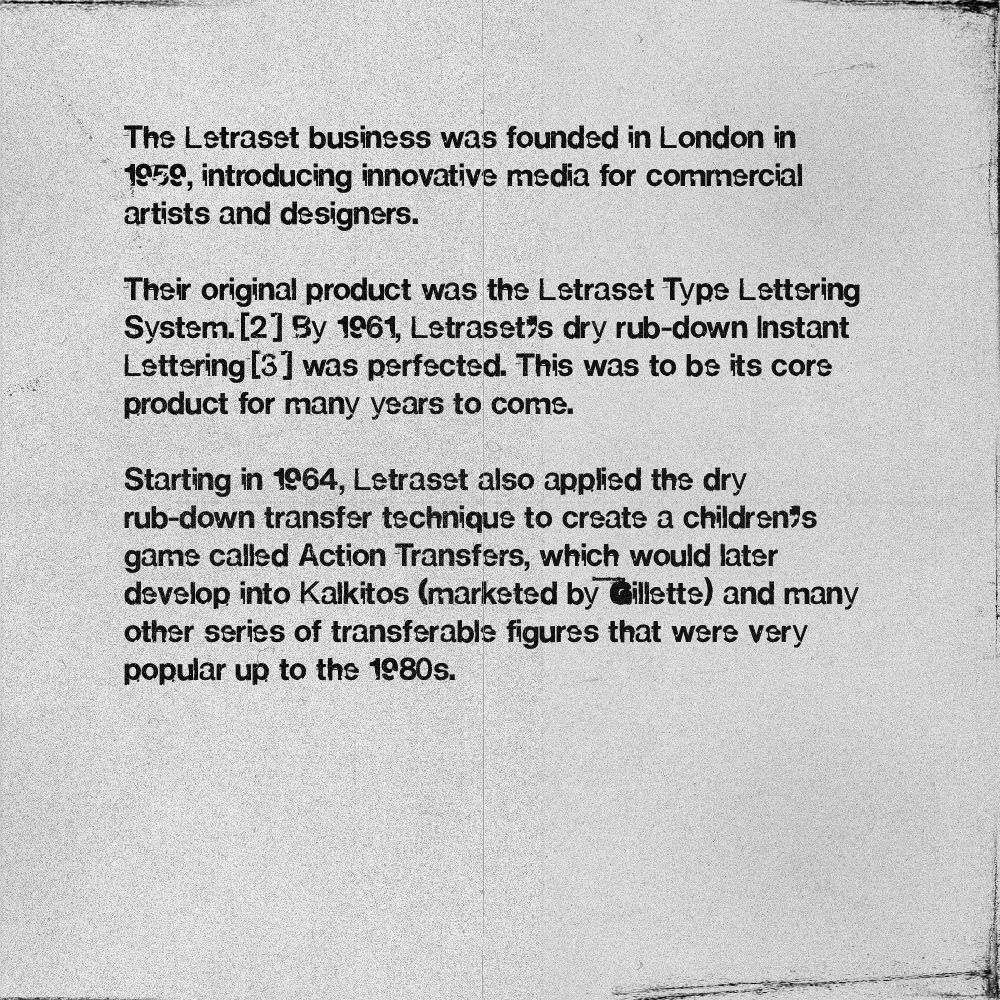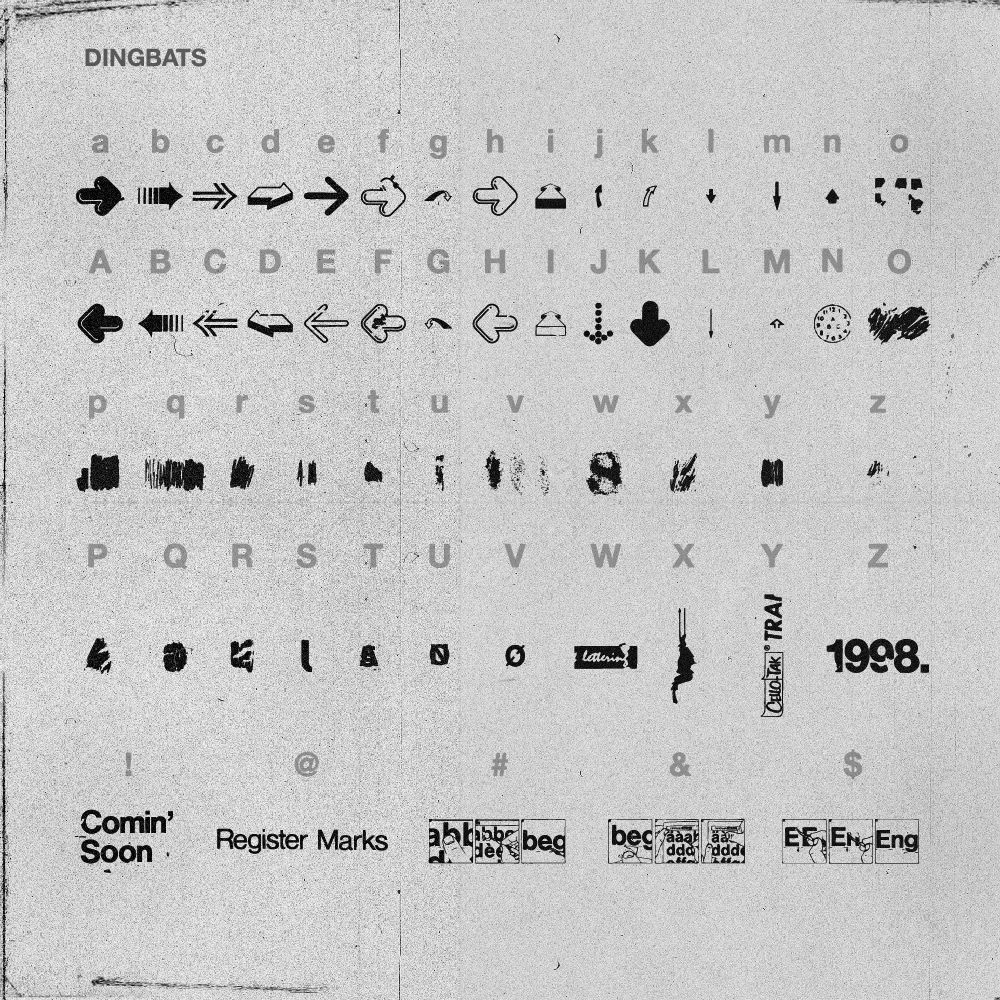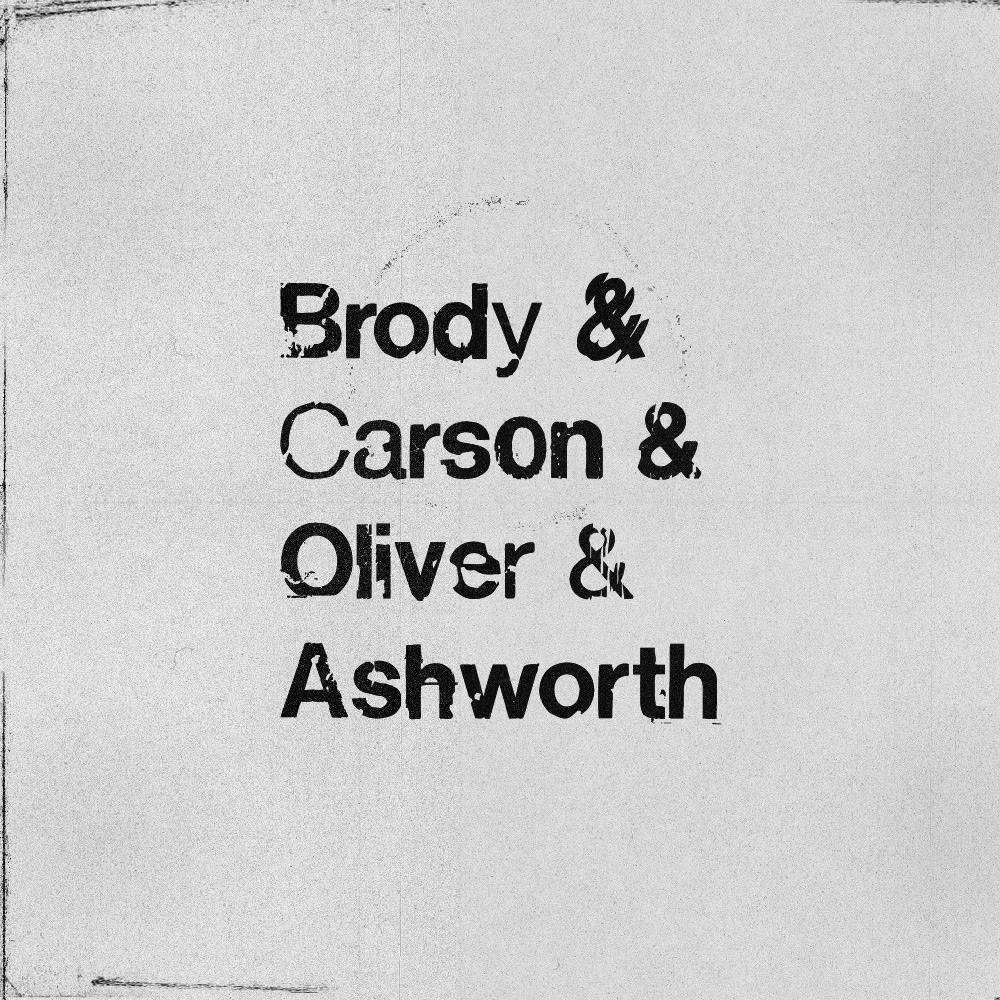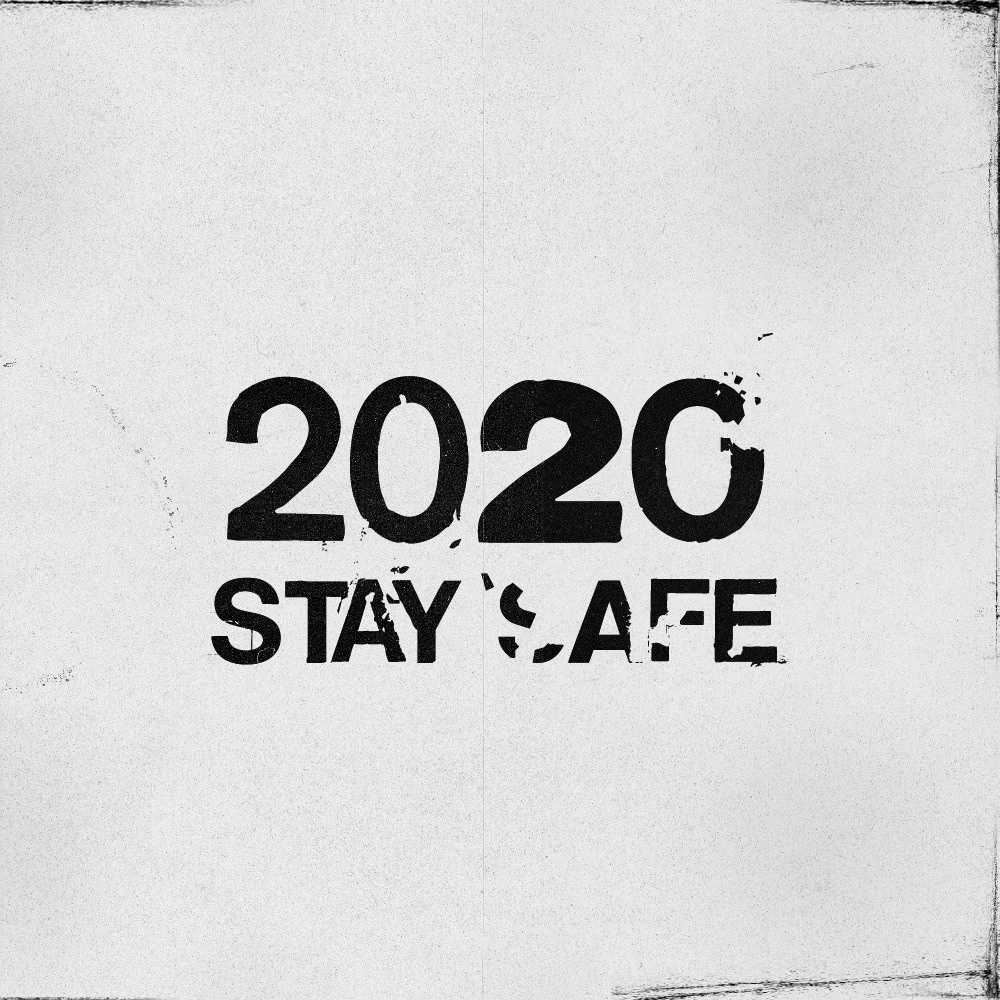
Swiss Grit is my new font, inspired by the work of my 90s design heroes and a passion for Letraset typographic dry transfers.
Between various alternative characters and a set of dingbats, the idea is to emulate the dynamics and imperfections of decals, while paying a literal tribute to the work of @ashworthchris, one of those responsible for the visual deconstruction of graphic design in the 90s.
Making my own broken version of Helvetica is an idea that has been with me for a long time and I am happy to be able to share it.